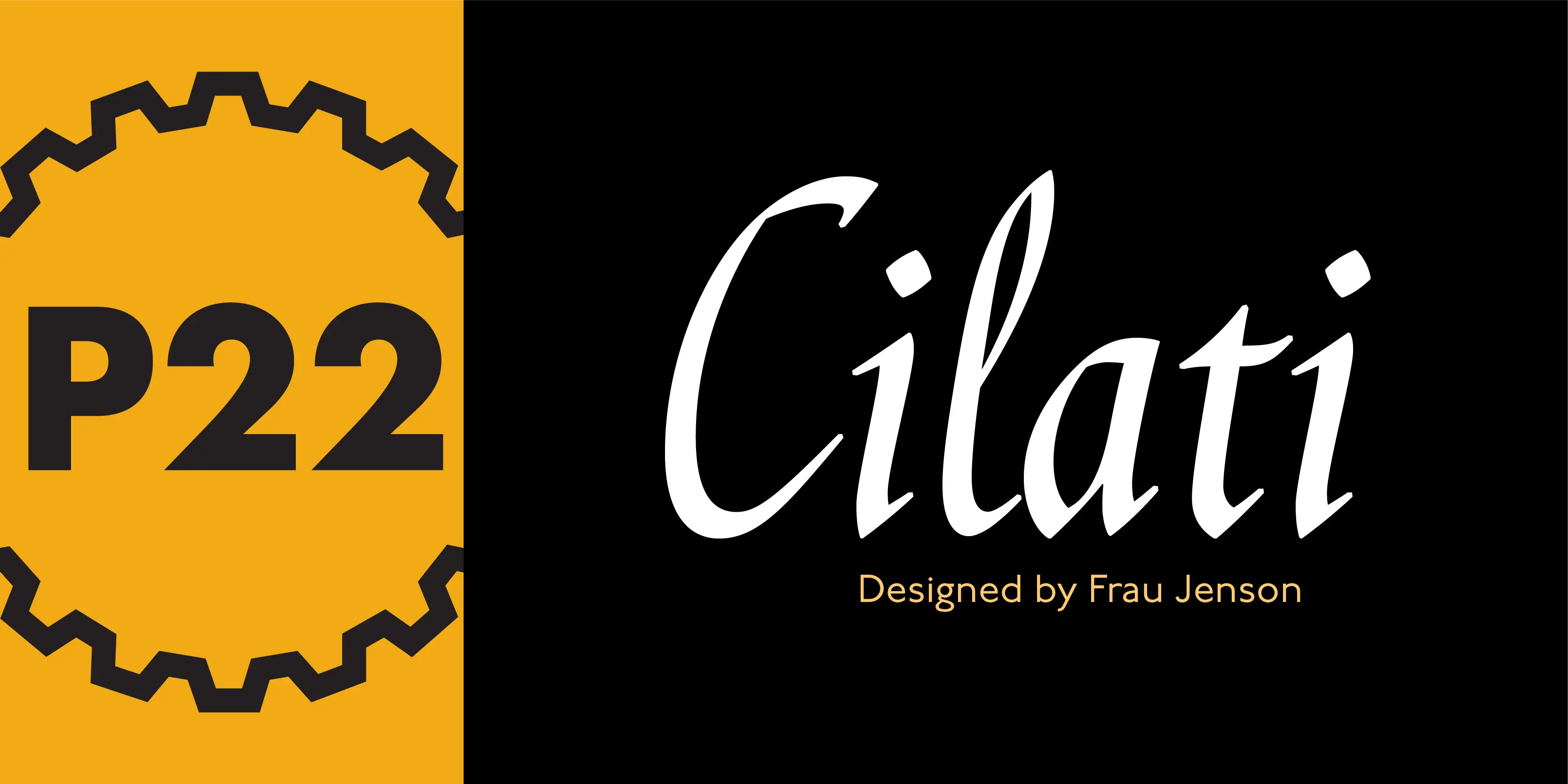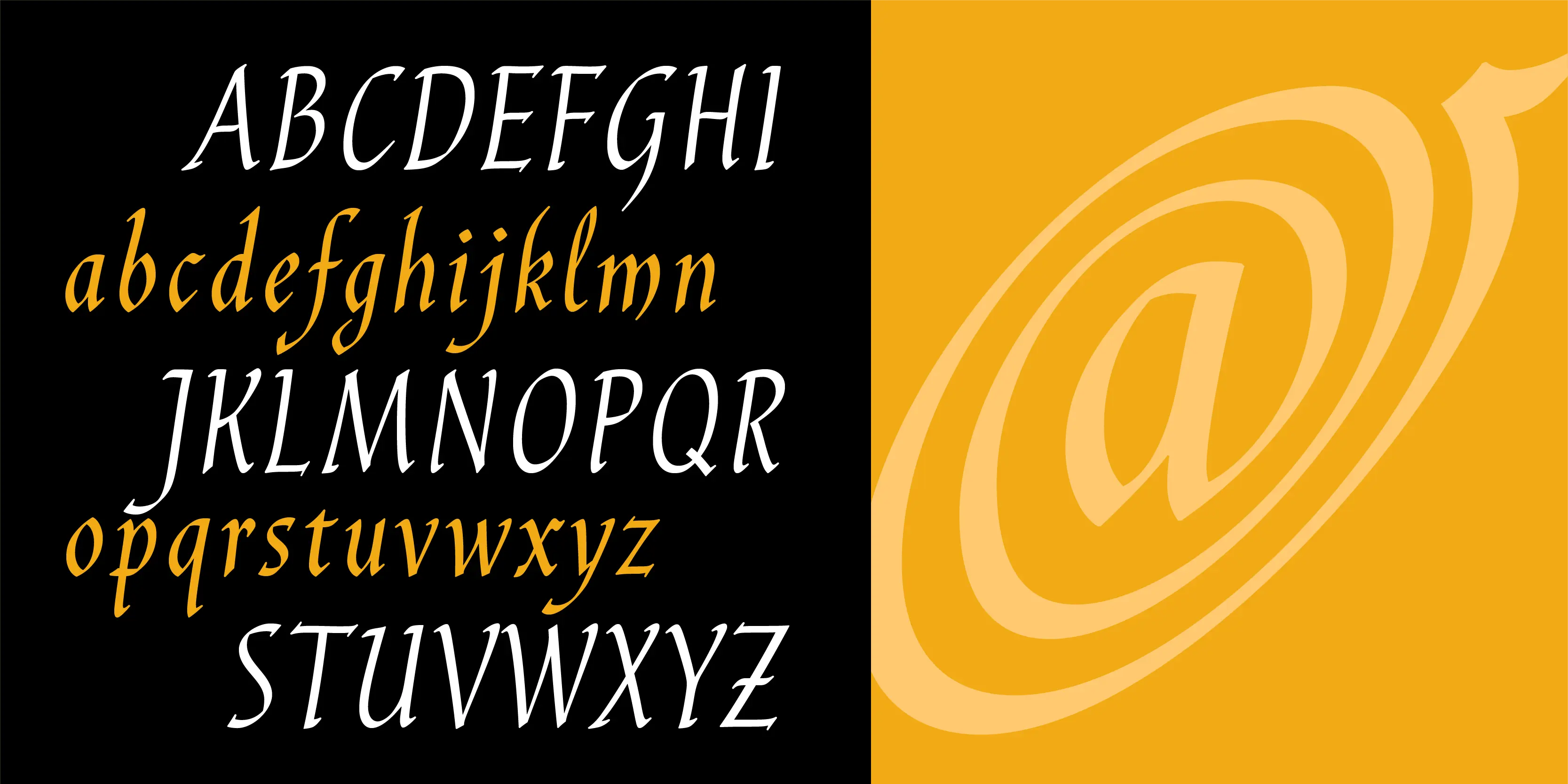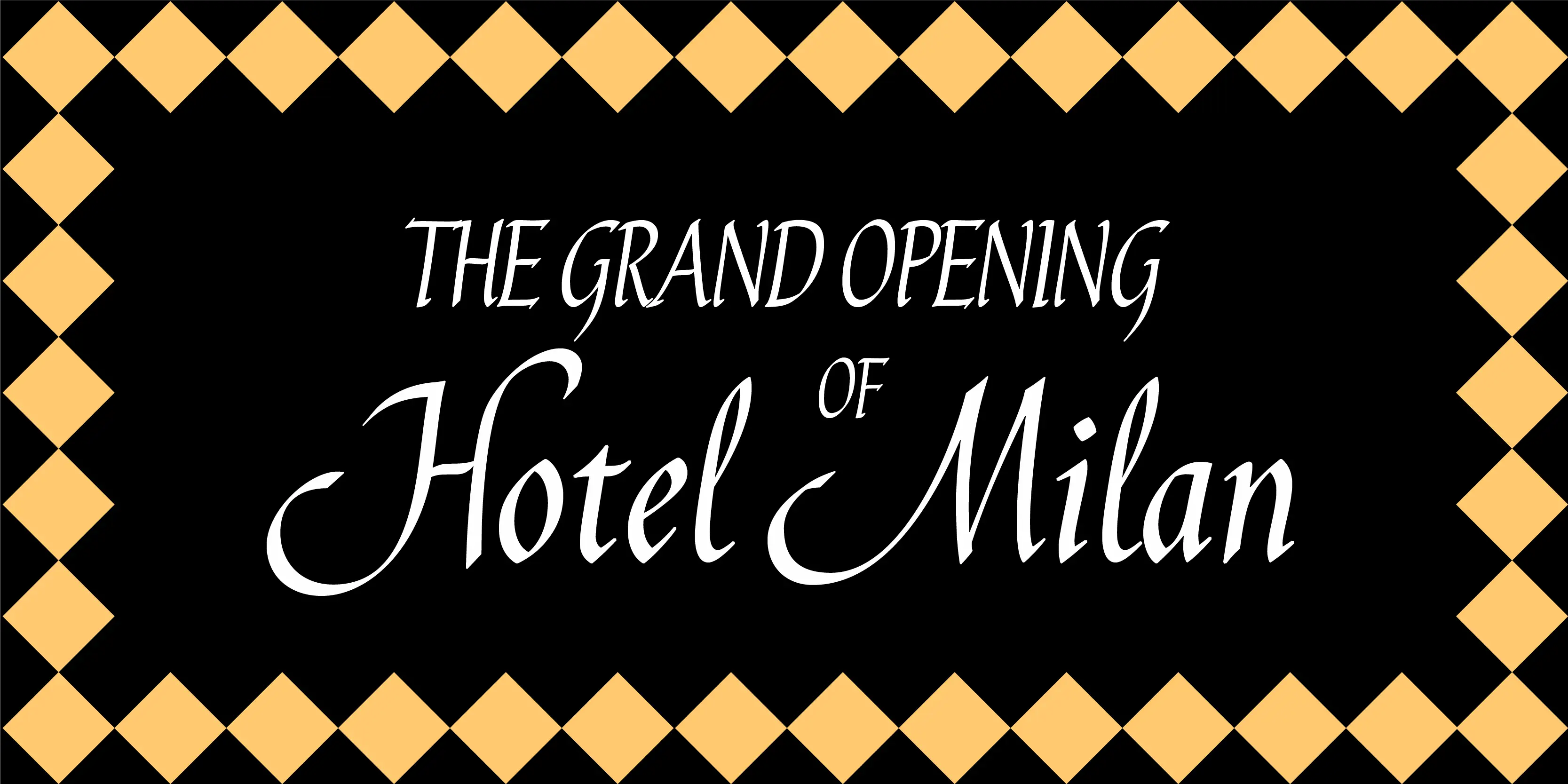
Cilati Font
Cilati
A calligraphic script available in several variations (or as one OpenType font with over 800 characters). Cilati is a flexible script which adapts well to a variety of uses. Based on Italic handwriting, this type style can adapt well for casual as well as formal design projects.
- Common Ligatures
- Discretionary Ligatures
- Fractions
- Lining Numerals
- Old Style Numerals
- Ornaments
- Proportional Numerals
- Slashed Zero
- Small Capitals
- Small Capitals for Capitals
- Stylistic Alternates
- Swashes
- Tabular Numerals